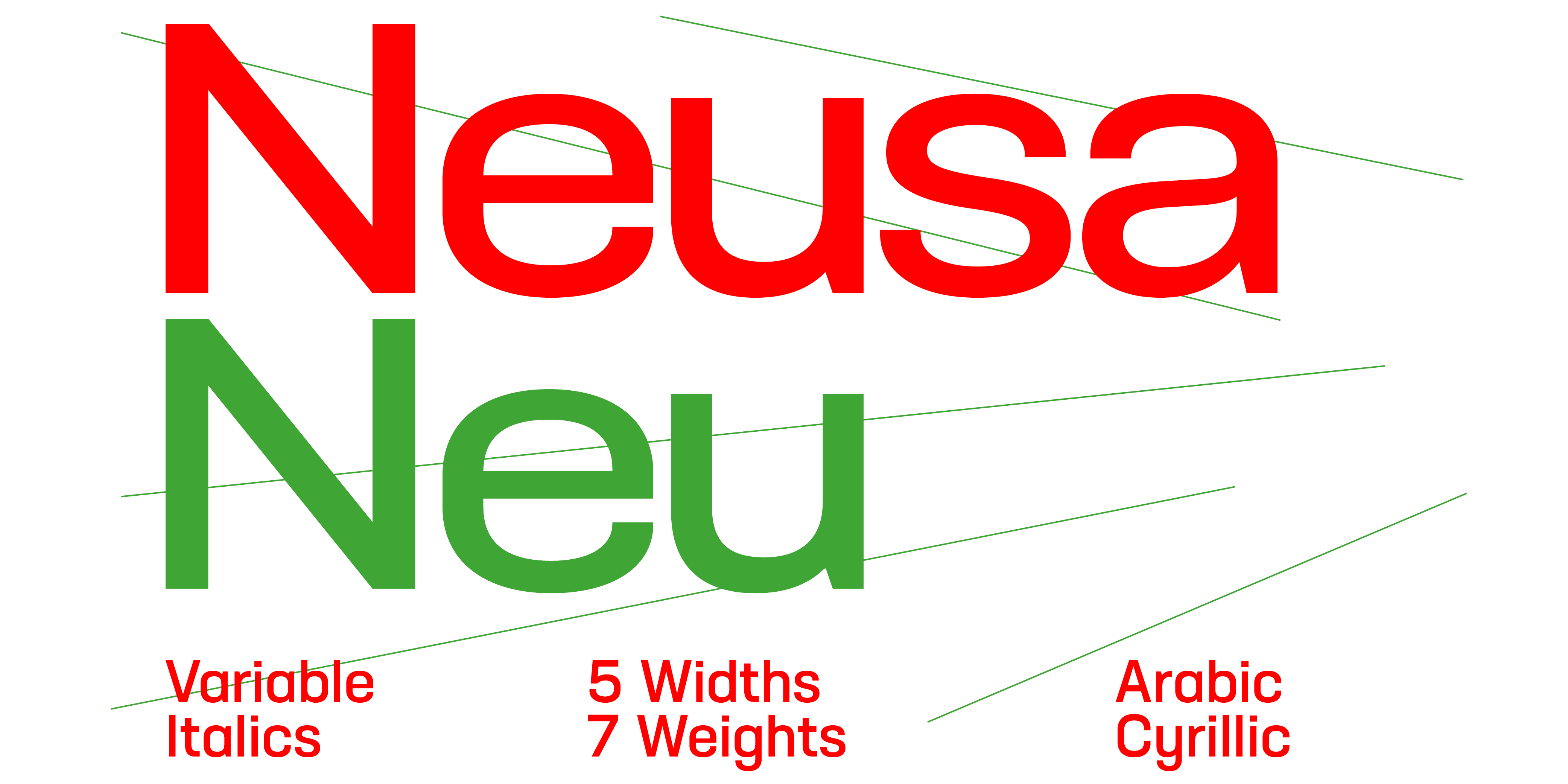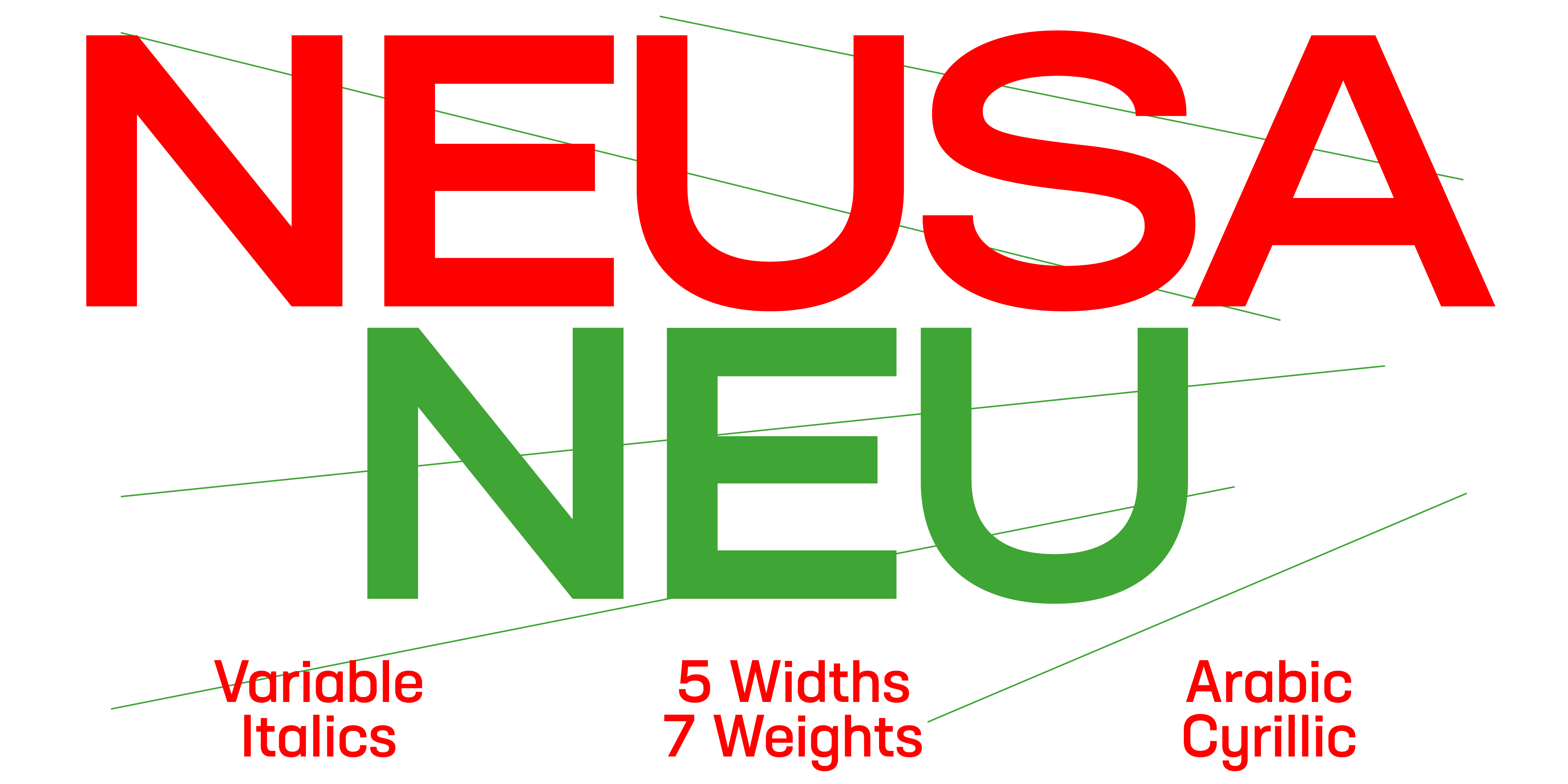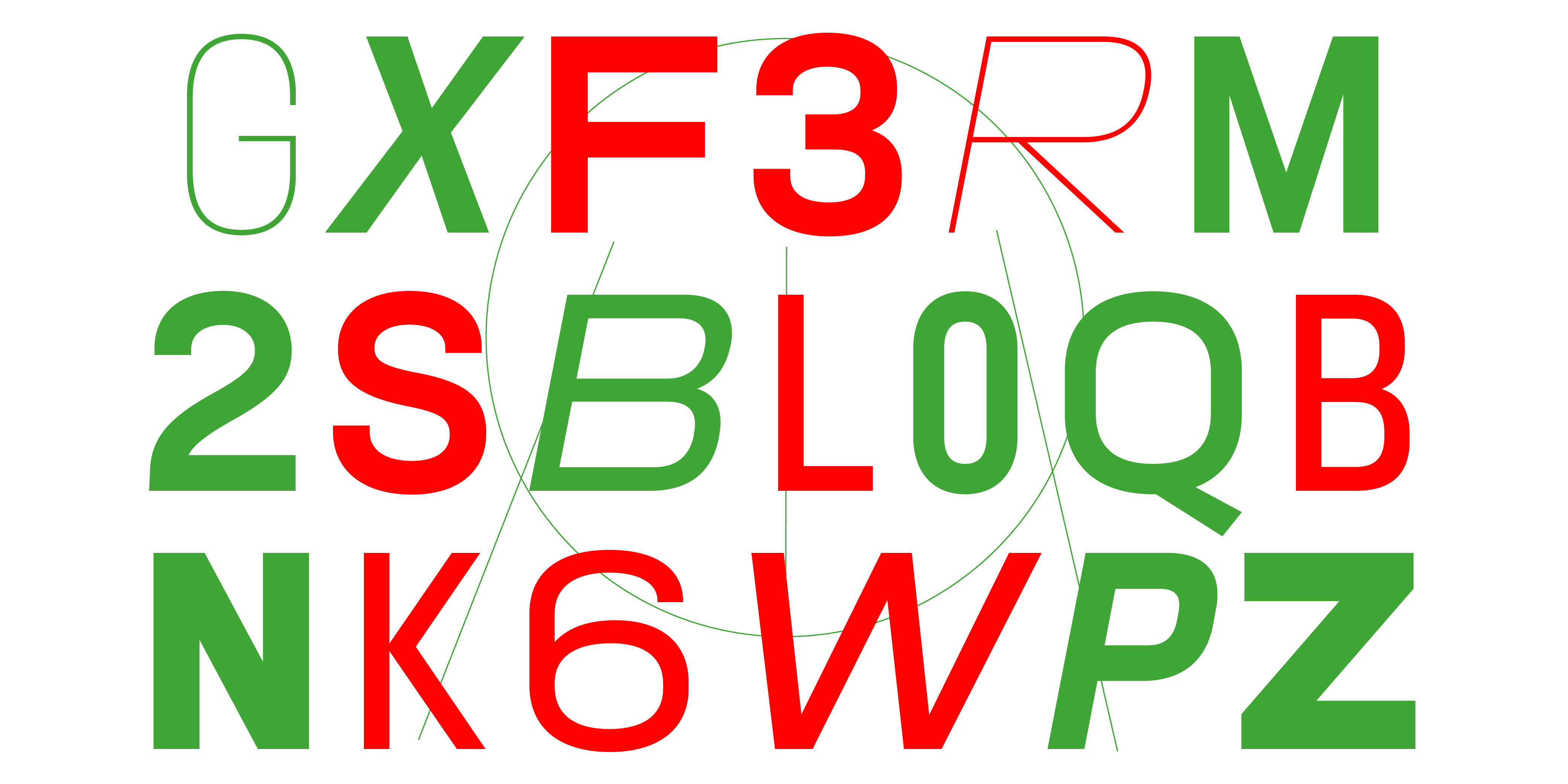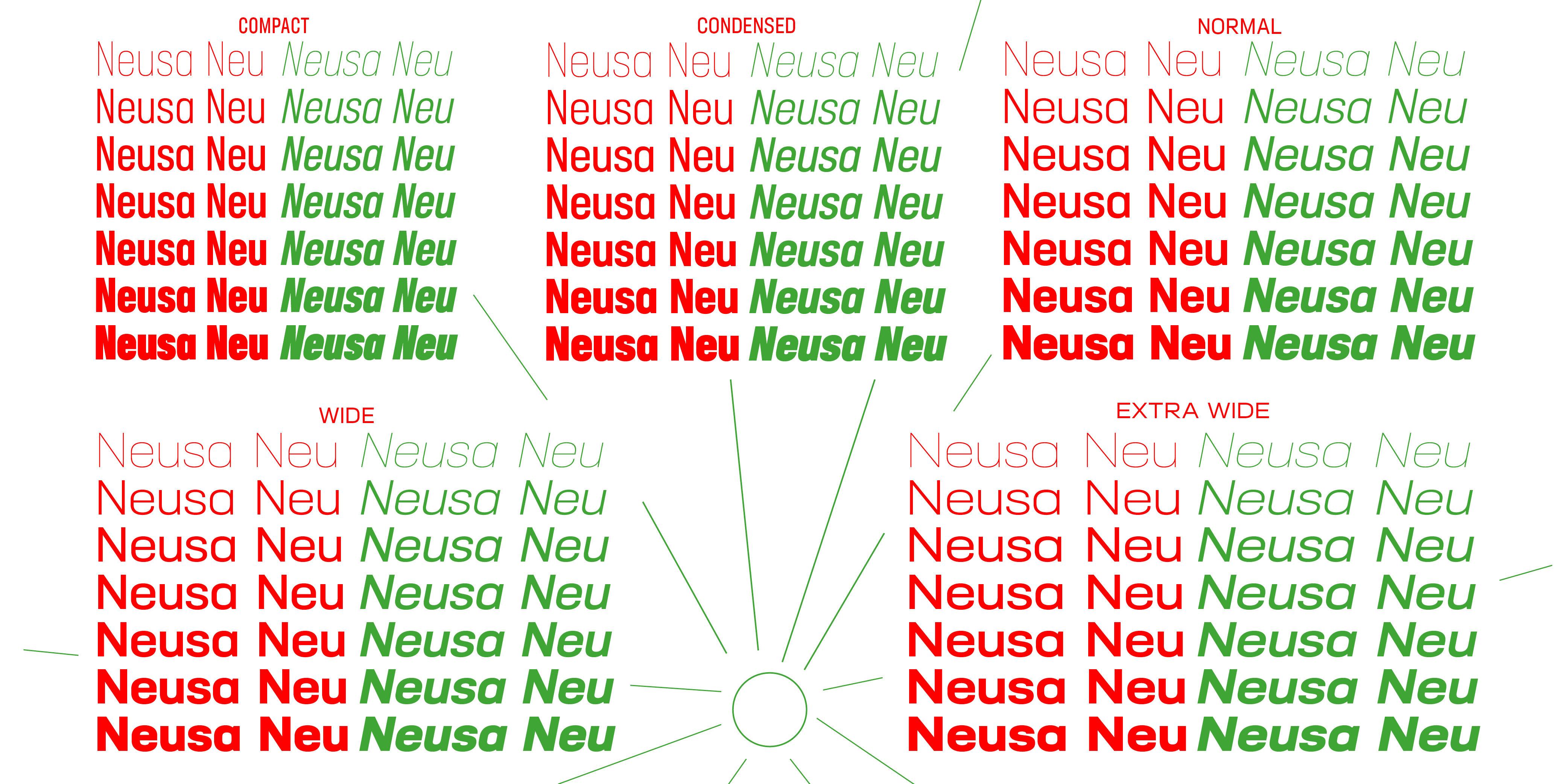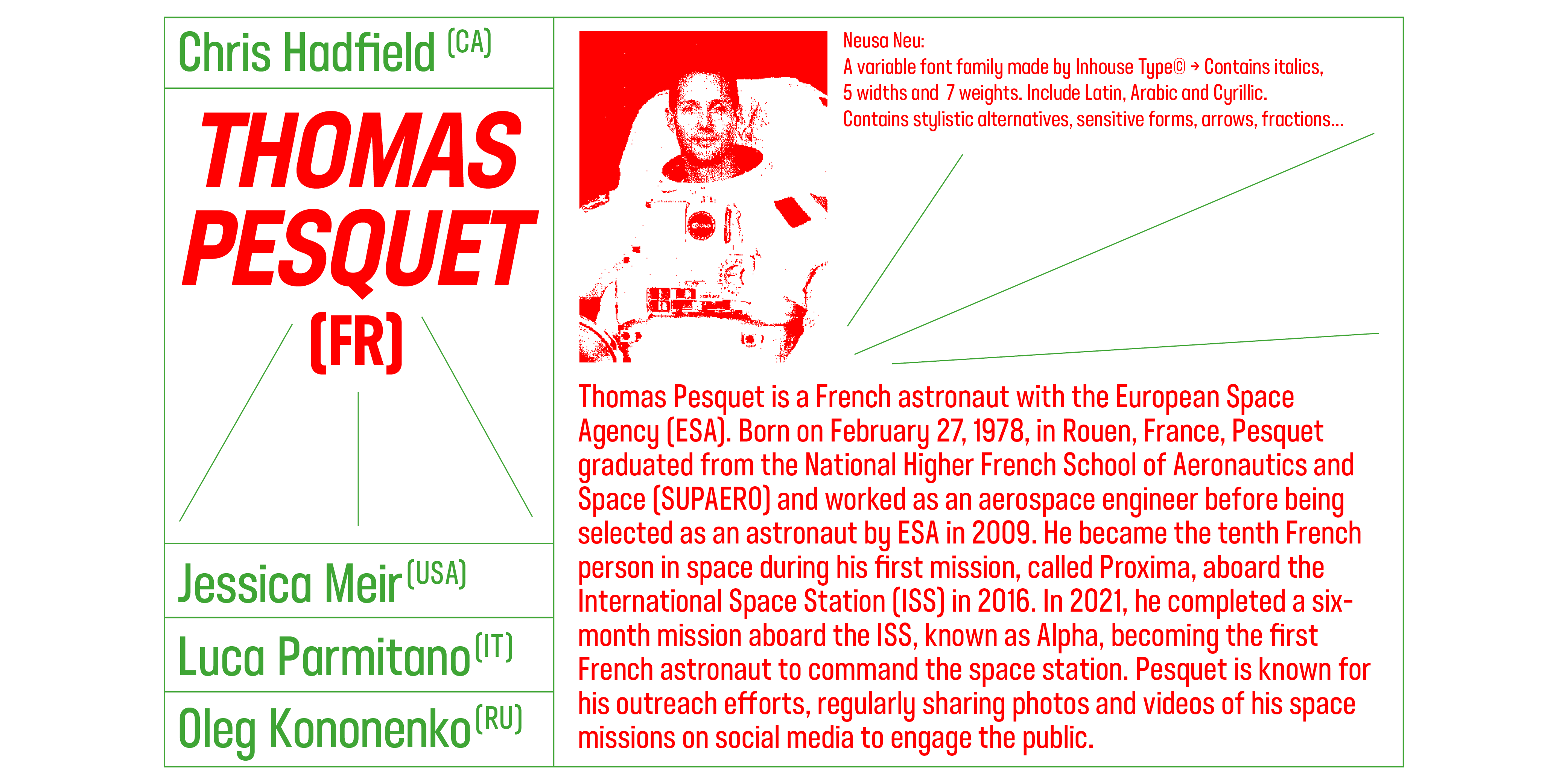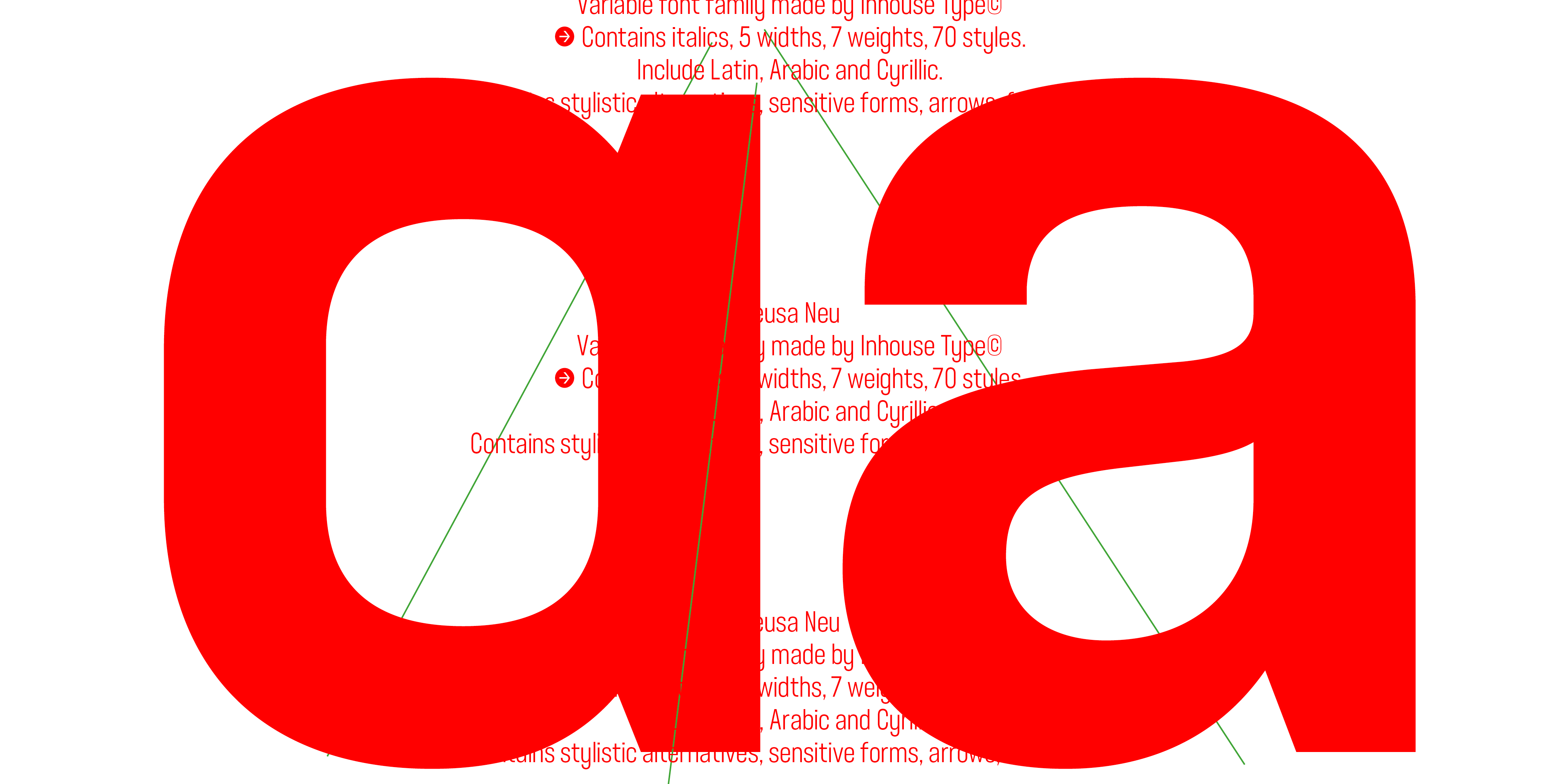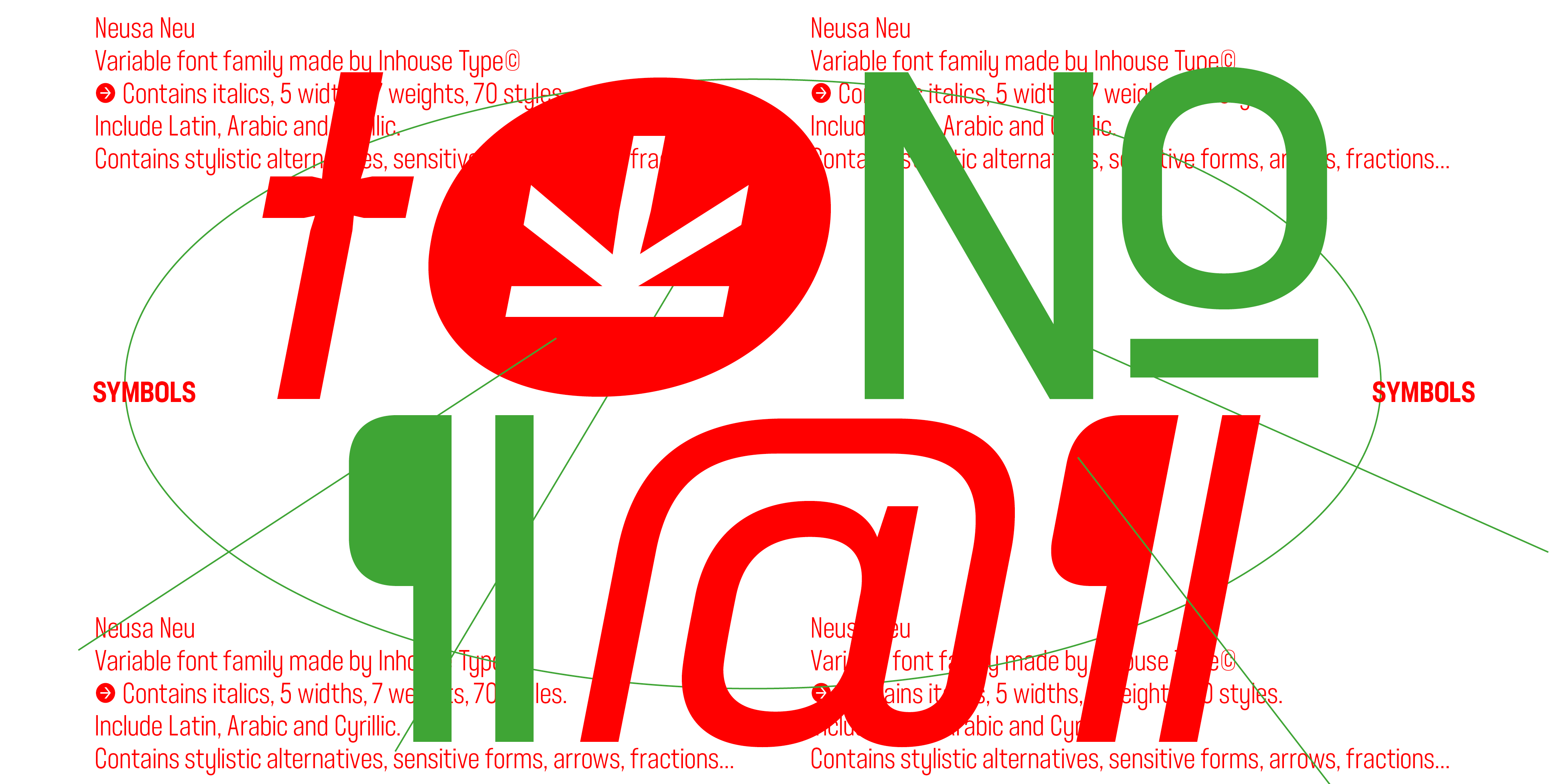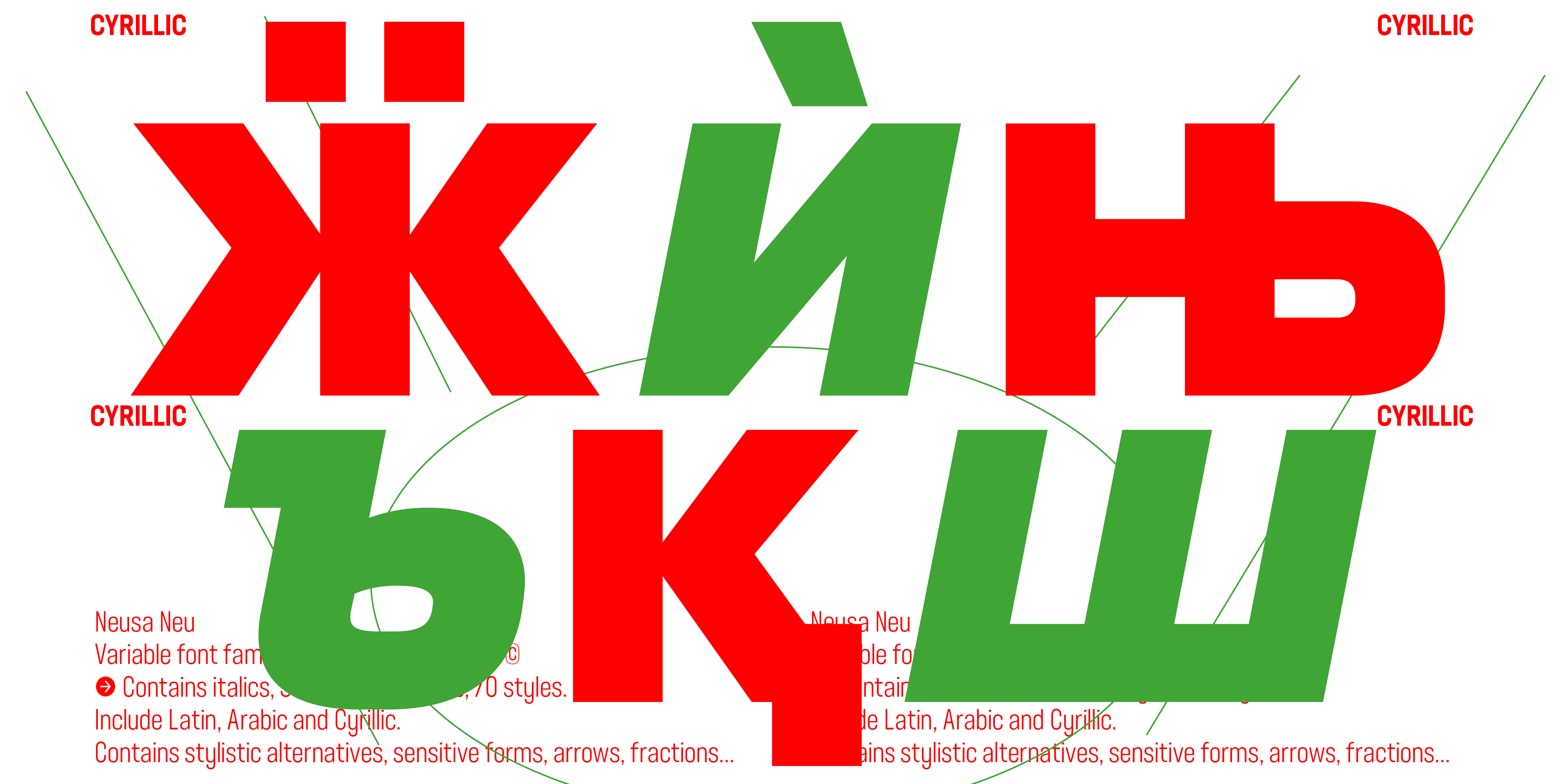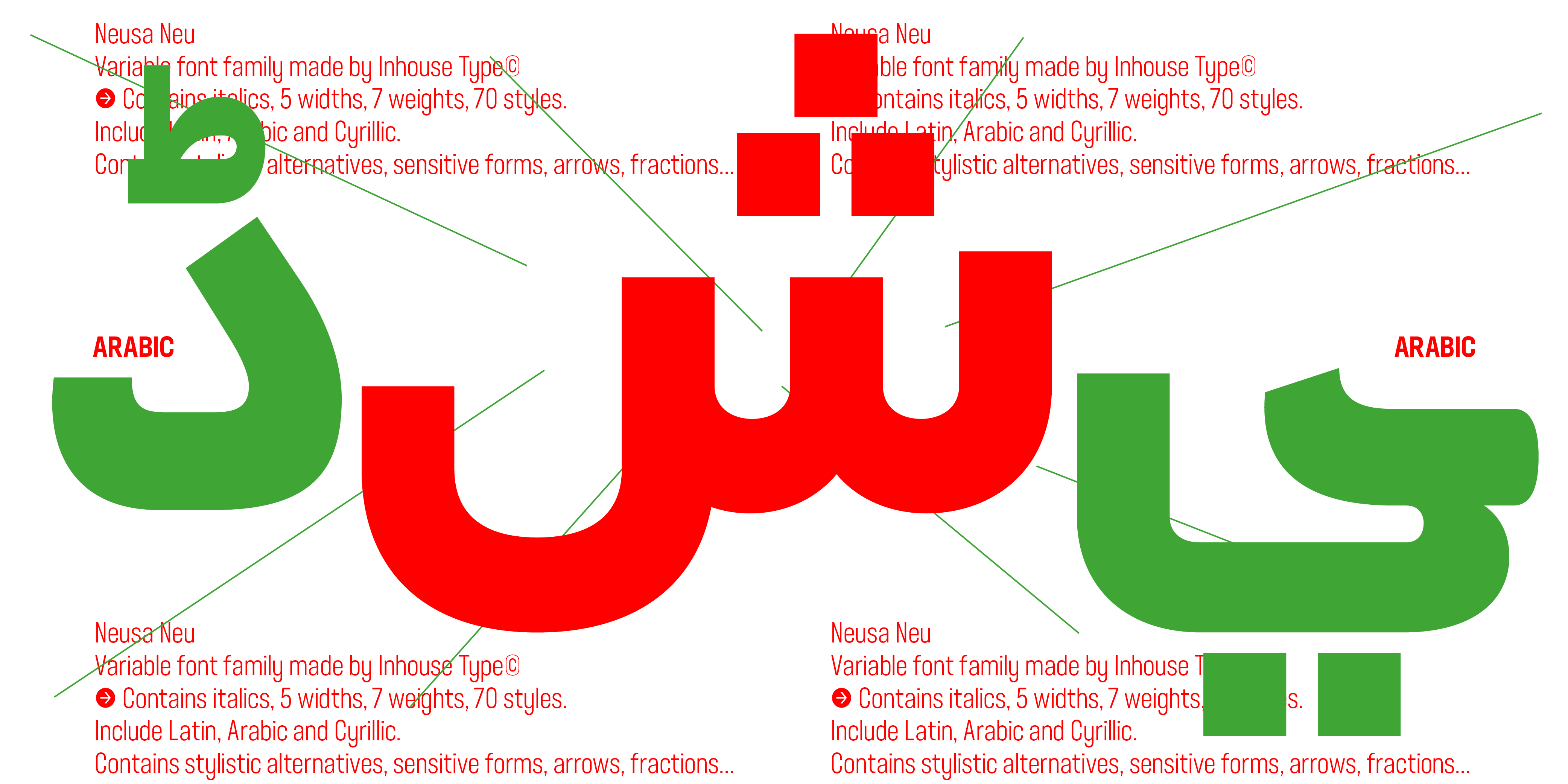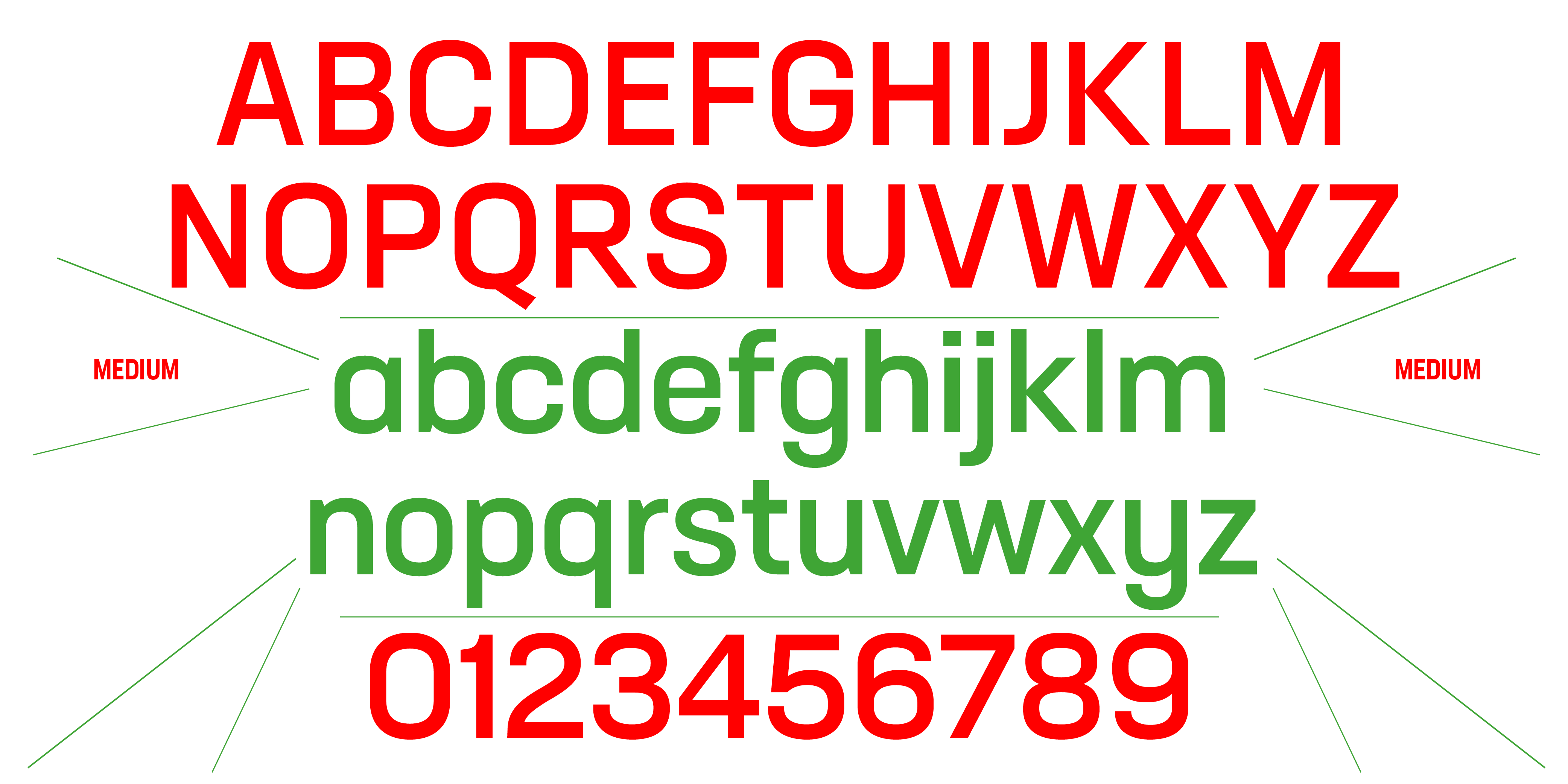
About Neusa Neu
Neusa Neu stands as a refined geometric sans serif type family, offering an enhanced iteration of the original Neusa typeface, which was initially designed and released in 2012. Neusa Neu is a versatile and functional typeface suitable for both text and display purposes, whether in print or on the web. The type family offers an extensive selection of weights, widths, and complementary italics, providing a versatile range of typographic choices. Language support includes Latin, Cyrillic and Arabic.